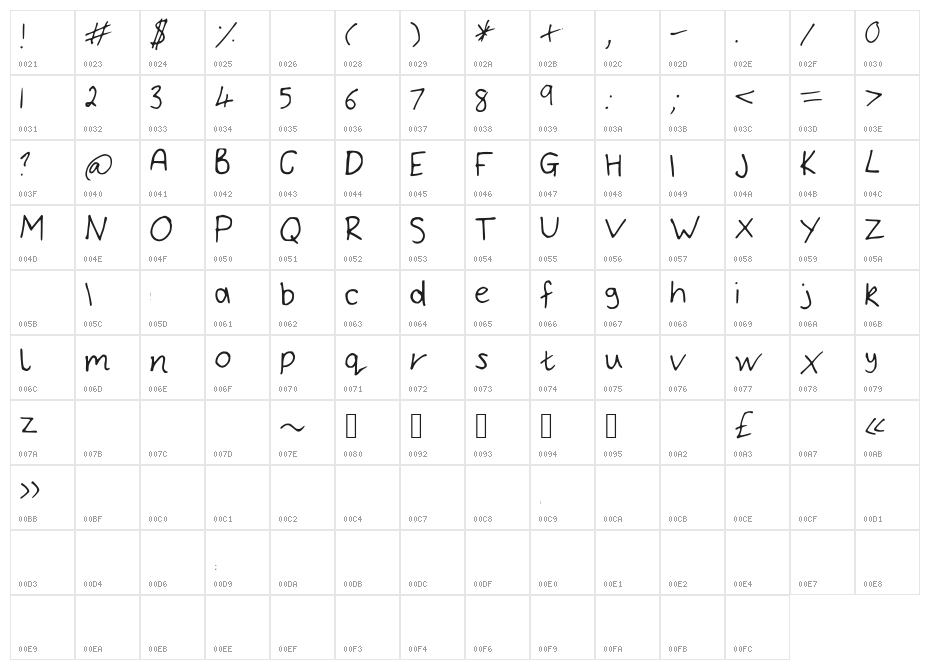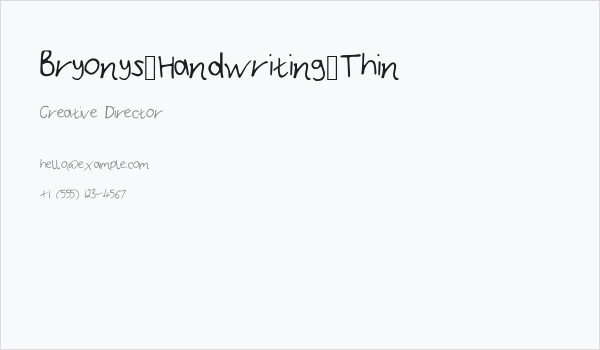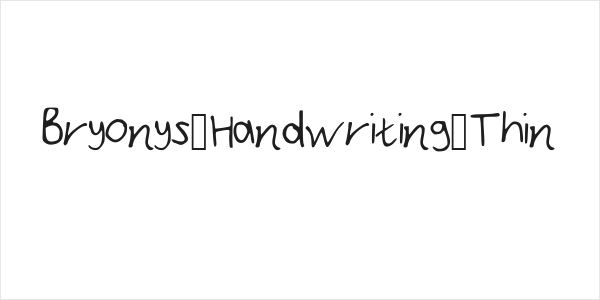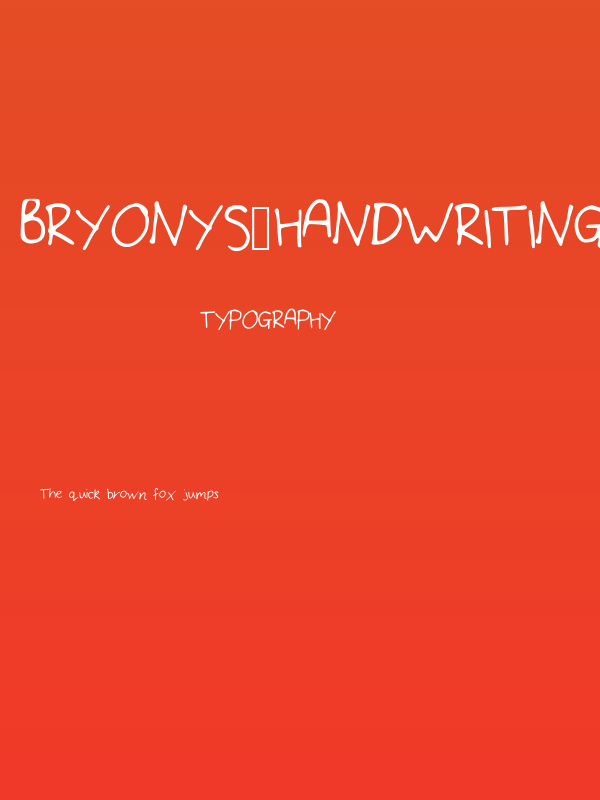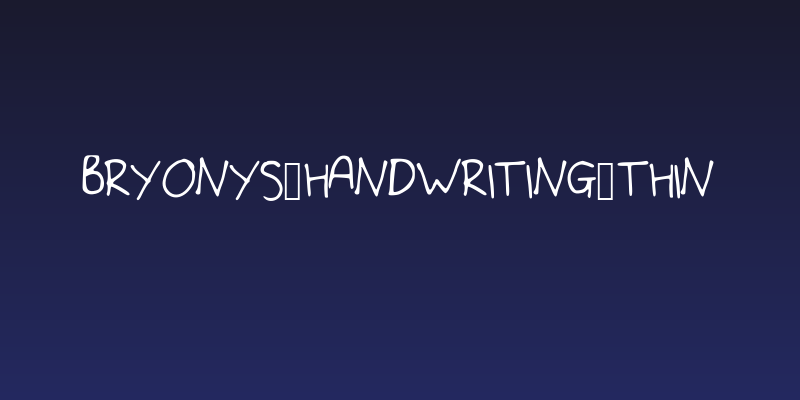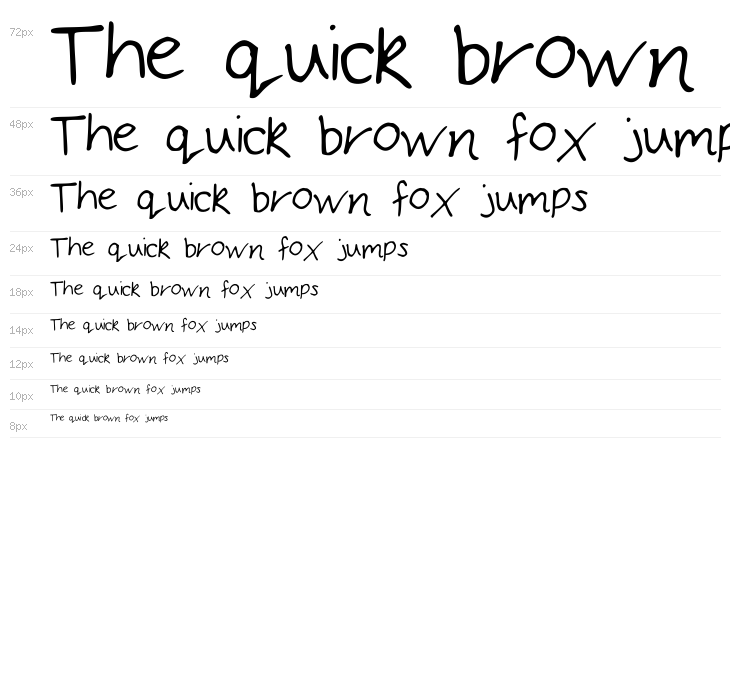
Bryonys_Handwriting_Thin Font
Bryonys_Handwriting_Thin Description
This font exudes a casual and personal touch, reminiscent of authentic handwriting. The characters are slightly irregular, adding to the charm and uniqueness of the style. The strokes are thin and fluid, giving a sense of lightness and ease. The uppercase letters are bold and prominent, while the lowercase letters maintain a consistent flow, enhancing readability. Numbers and special characters are crafted with the same playful and informal style, making this font versatile for various creative projects. The overall appearance is approachable and friendly, perfect for conveying a personal or informal tone.
| Use Case | Invitations, Greeting cards, Personal notes |
| Proposed Projects | Ideal for personal notes, invitations, greeting cards, scrapbooking, and informal branding. |